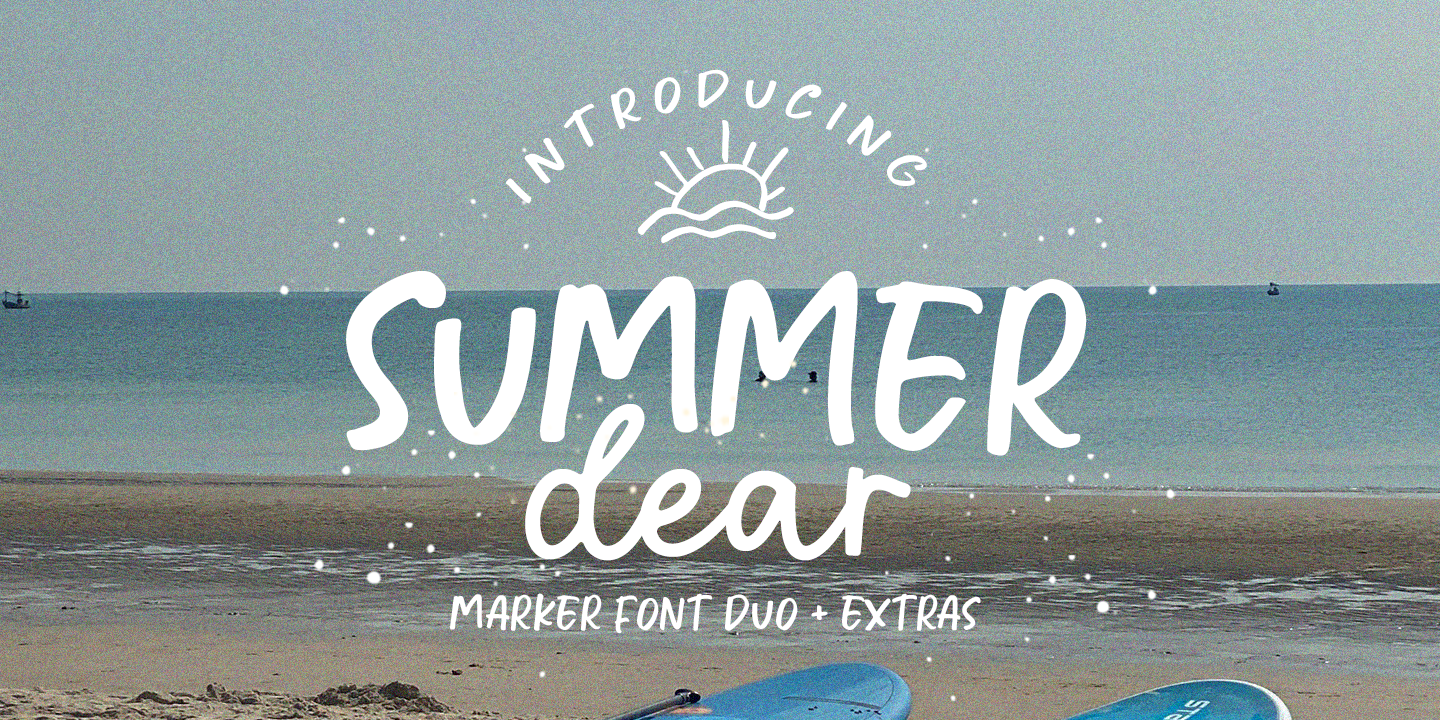
Summer Dear Font Duo Free Download
Summer Dear Font Duo Font Free Download
Looking for a charming and versatile font duo that blends playful script with clean sans-serif? Summer Dear Font Duo Font Free Download is perfect for invitations, branding, social media graphics, and lifestyle projects that need a fresh and friendly vibe. Its combination of smooth, flowing strokes and simple, modern lines creates a balanced and eye-catching design.
Whether you’re crafting logos, greeting cards, or promotional materials, Summer Dear Font Duo Font Free Download brings warmth and personality to your typography.